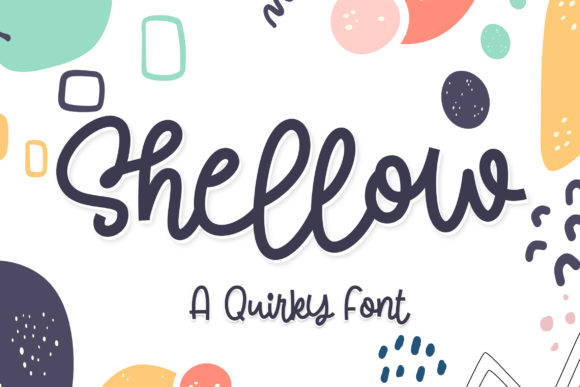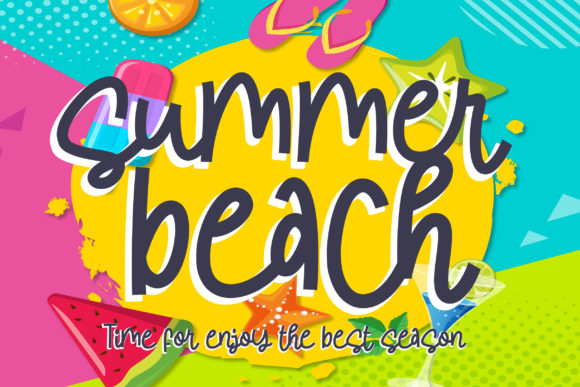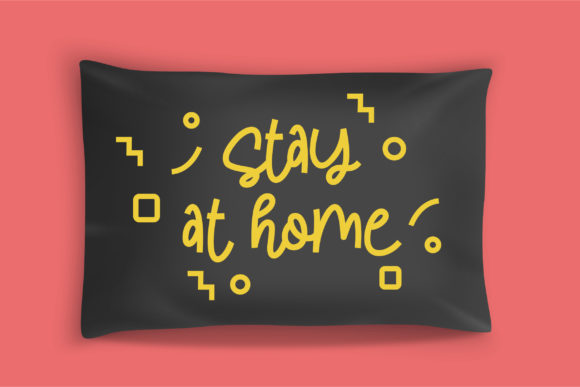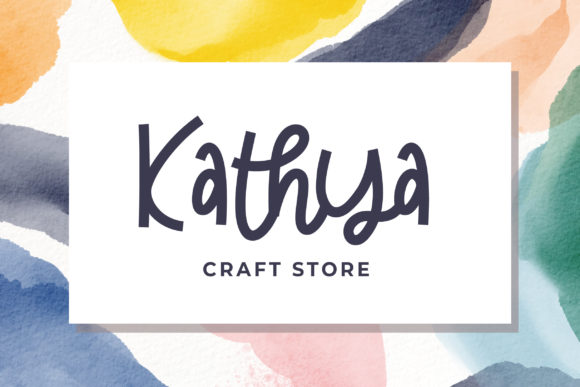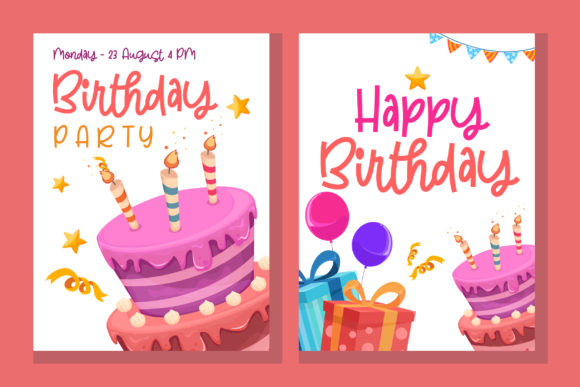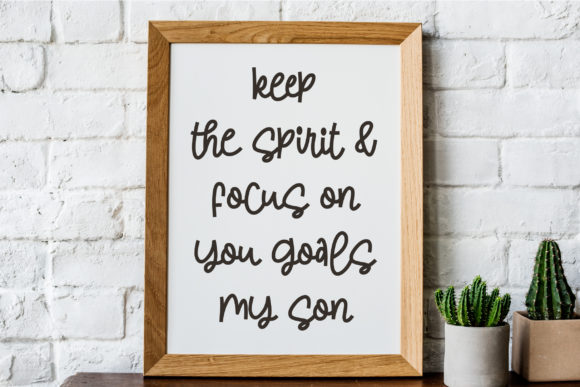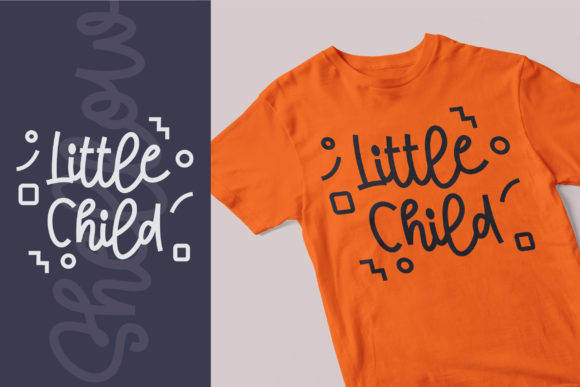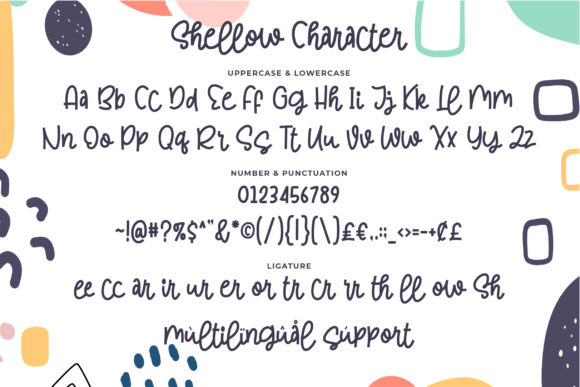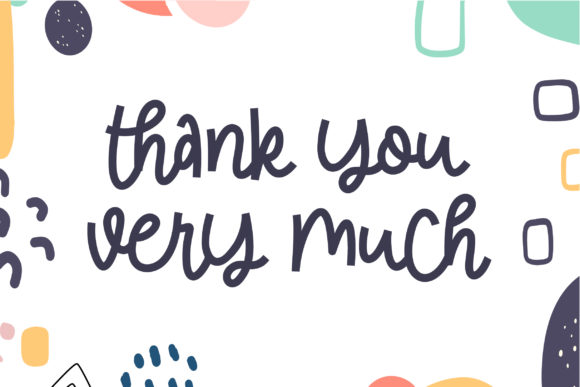
Shellow Font
About Shellow Font
Shellow is a quirky and cute handwritten font. It embodies fun and joyfulness. Add this precious font to each of your school projects and notice how it brightens them up!